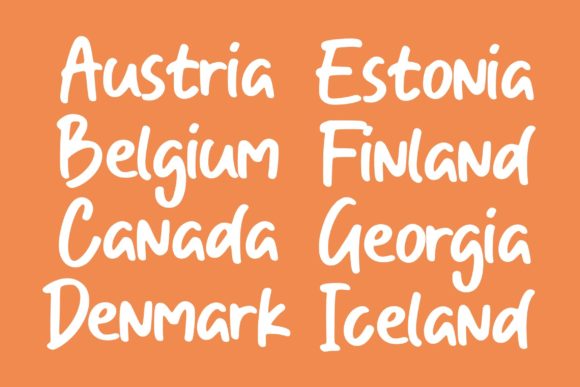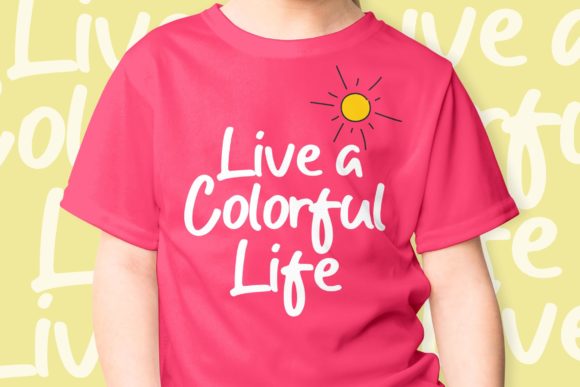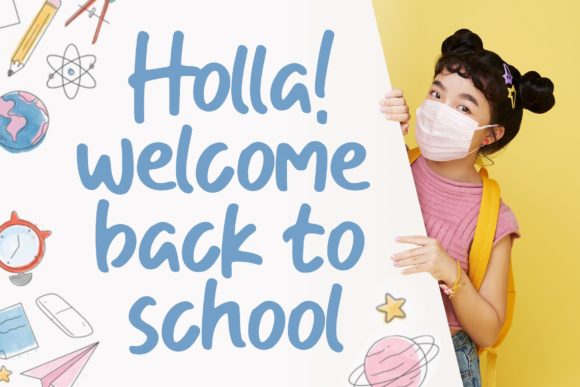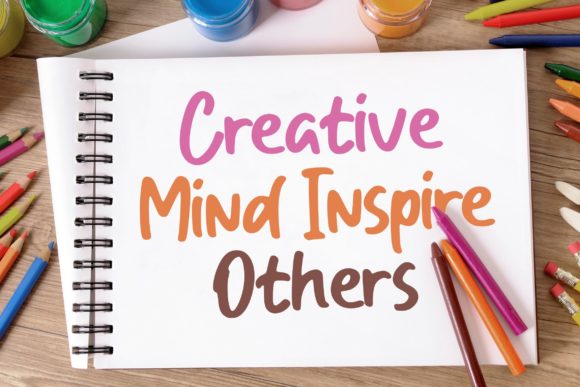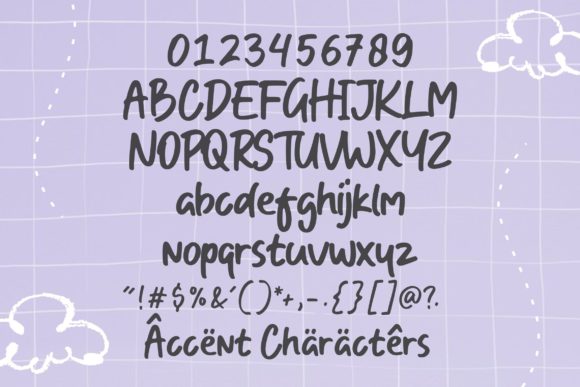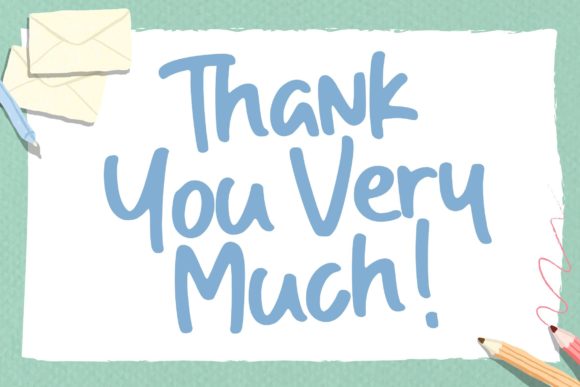
Introduction to One Crayon Font
Who hasn’t spent hours as a child rummaging through a box of crayons, creating vibrant masterpieces that brought their imagination to life? The simple joy of coloring is something that never truly fades away, and for designers, it’s a reminder of the importance of creativity and playfulness in their work. This is exactly what the One Crayon Font embodies – a cute and informal display font that perfectly captures the essence of childhood wonder.
As a valuable design resource, the One Crayon Font is ideal for any high-quality creative project that requires a touch of whimsy and authenticity. With its transparent background and easy-to-read design, it’s the perfect choice for school projects, children’s activity sheets, and even branding materials that need a youthful twist. And the best part? This fantastic font is available for free download, making it a must-have for designers of all levels.
Key Features of One Crayon Font
- High-quality design: One Crayon Font is a unique and creative design resource that offers a high-quality visual experience for your projects.
- Transparent background: The font features a transparent background, allowing you to easily integrate it into your design without any distractions.
- Unique characteristics: The font features a distinctive, hand-drawn style that sets it apart from other fonts, making it an excellent choice for creative projects that require a personal touch.
Honest Review: One Crayon Font
I recently came across the One Crayon Font, and I must say, it’s a wonderful addition to any creative project. The font is perfect for designers looking for a high-quality, unique, and playful typography. One of the standout features of this font is its transparent background, making it easy to combine with other design elements.
What works well about the One Crayon Font is its versatility. You can use it for a variety of projects, from children’s educational materials to marketing campaigns. The font is also available for free download, which is a huge bonus for designers on a budget. Additionally, the font’s design is clean and simple, making it easy to read and understand.
However, there are a few limitations to consider. The font may not be suitable for formal or professional projects, as its playful design may not convey the level of sophistication required. Additionally, the font may not be compatible with all design software, so be sure to check compatibility before downloading.
Overall, I’m impressed with the One Crayon Font. It’s a great design resource for designers looking to add some creativity to their projects. While it may have some limitations, its unique design and free download make it a valuable addition to any design library.
Use One Crayon Font to add a pop of color to your designs.
Combine One Crayon Font with other design resources for a cohesive look.